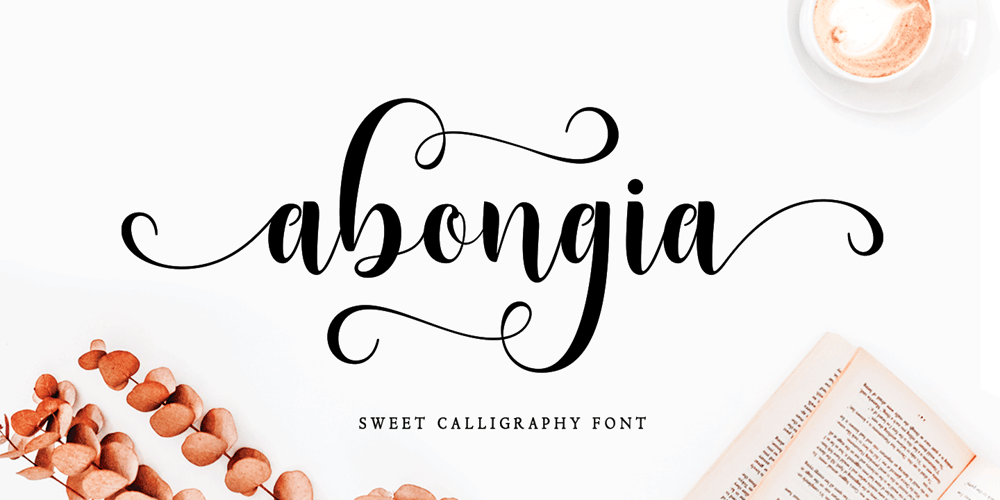
Abongia Font Family was designed by Muhammad Nazar and published by Bungletter. Abongia contains 4 styles and family package options. Abongia is a very cute, elegant and unique handwritten font. Expertly designed to be a true favourite, this font has the potential to take your creative ideas to the highest level!This font is PUA encoded which means you can access all the glyphs and sweeps easily!Abongia is attractive because it is sleek, clean, feminine, sensual, glamorous, simple and very easy to read, thanks to its many fancy letter connections. I also offer a decent number of style alternatives for all letters. The classic style is very suitable to be applied in various formal forms such as invitations, labels, restaurant menus, logos, fashion, make up, stationery, novels, magazines, books, greeting/wedding cards, packaging, labels or all kinds of advertisements. for your purposes. . . . . . .Contains full set:-4 Type Font-Uppercase-Lowercase-Alternative-Ligatures-Punctuation-Number-Multilingual support.need help or have questions let me know. I’m happy to help.